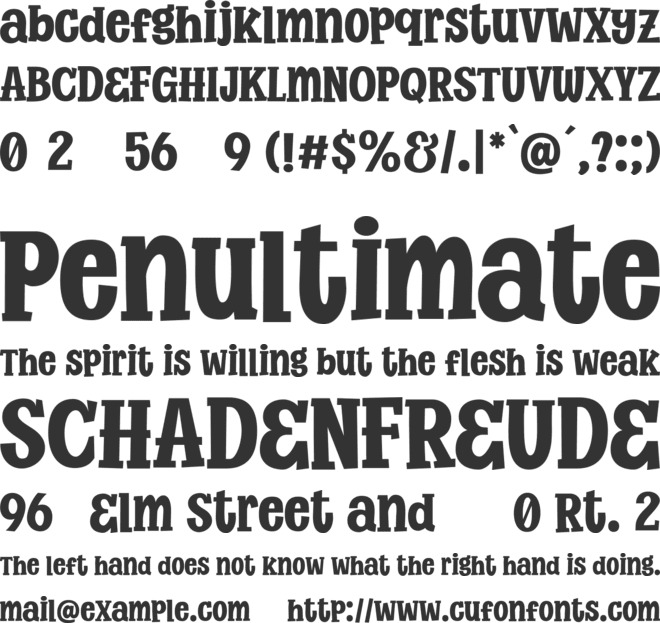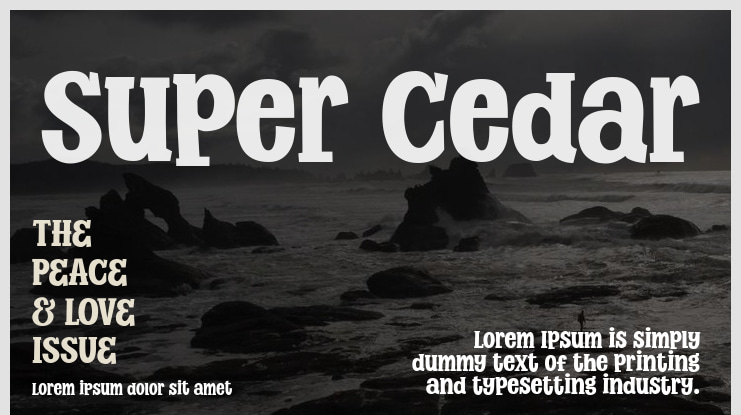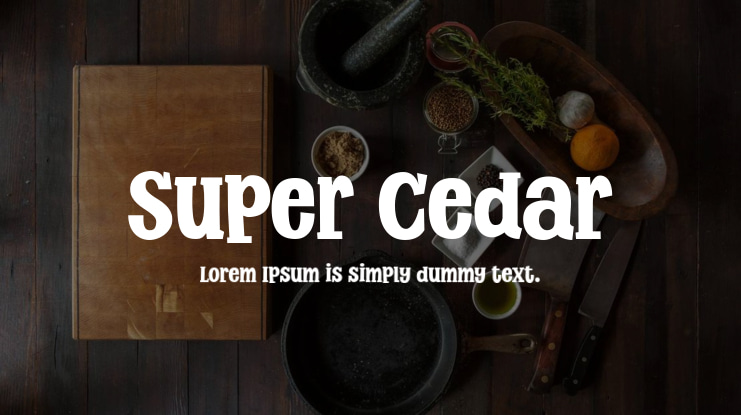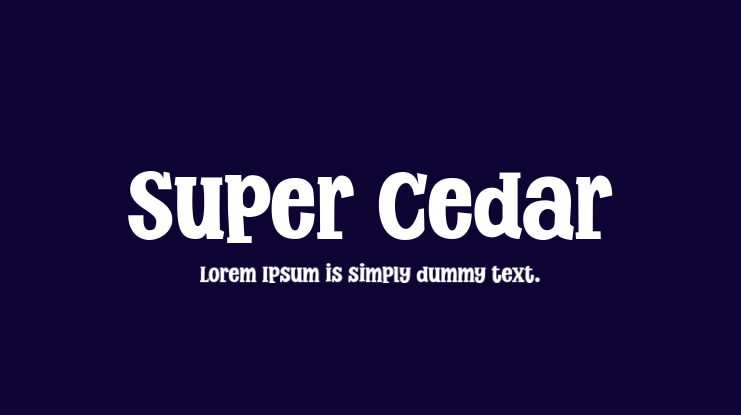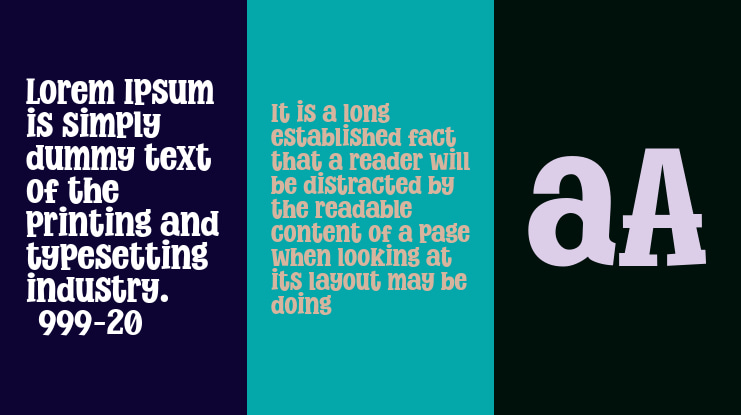
Super Cedar Font
This font is for PERSONAL USE ONLY!.If you want to use this font for commercial purposes, you will need to purchase a commercial license. You can purchase a commercial license at https://allsuperfont.com/product/super-cedar/Super Cedar: This bold serif font adds a touch of whimsy to your headlines. It's perfect for making a statement that's both impactful and lighthearted.